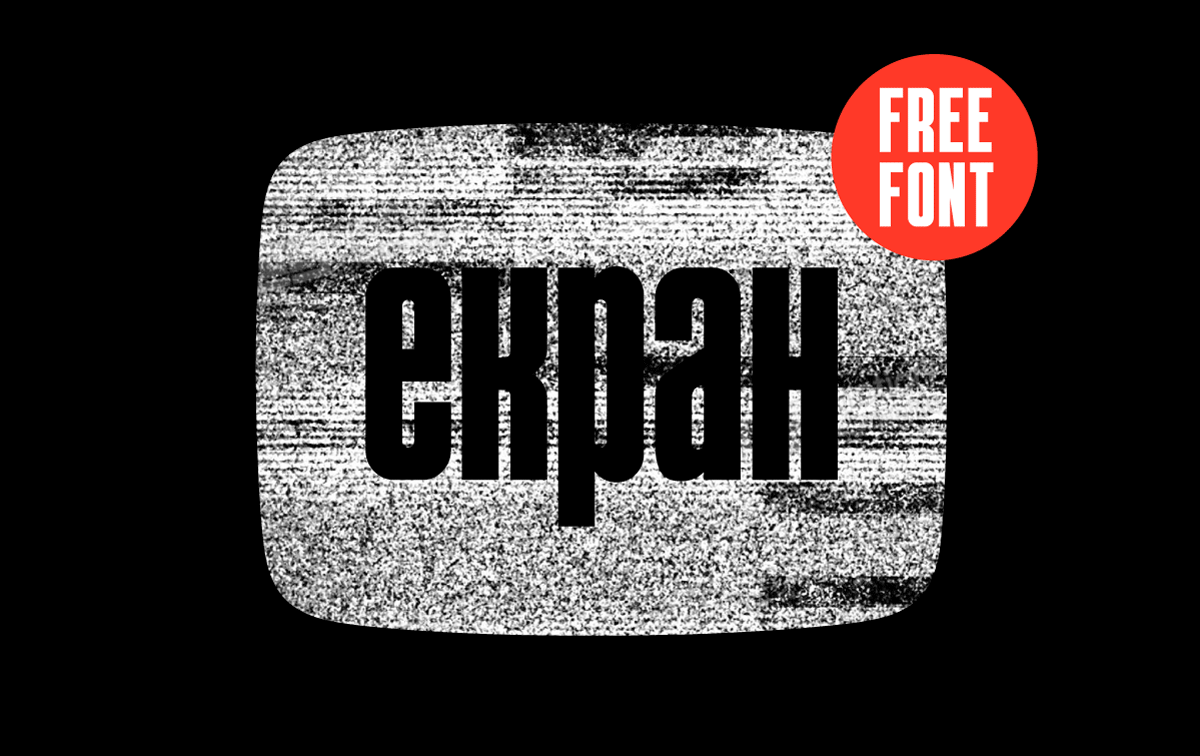
Ekran Typeface
Екран – free display font is a created by Nebojsa Gelevski – Bane. The Екран font is inspired by headline fonts used in Ekran weekly magazine from Macedonia in 1970s. English translation of ‘Ekran’ is ‘Screen’. This minimalistic and classy all-caps sans-serif typeface is perfect for making gorgeous logos & titles.